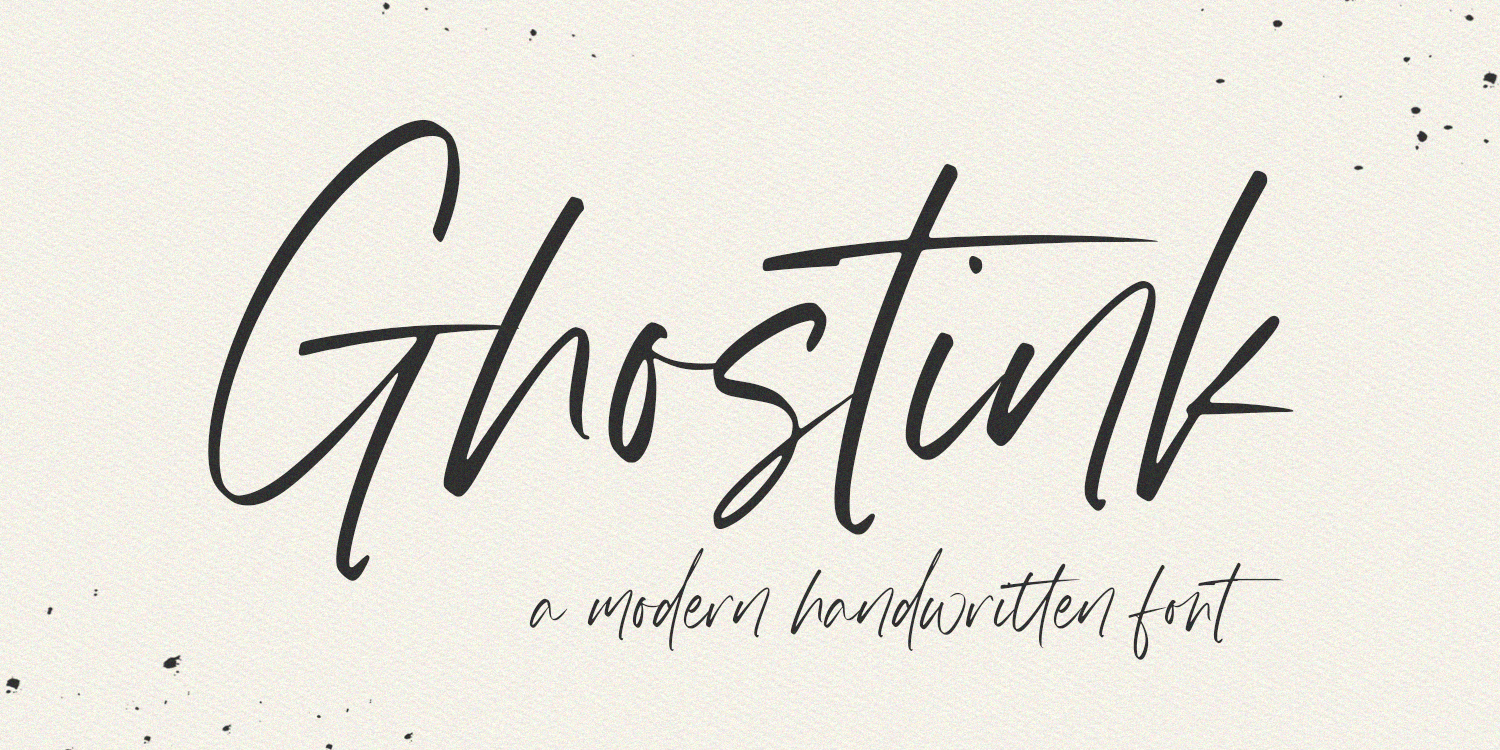
Ghostink Font is ideal for horror movie titles, haunted attraction branding, Halloween event posters, gothic literature covers, supernatural gaming graphics, paranormal investigation logos, spooky themed restaurants, mystery novel designs, and eerie atmospheric campaigns.
What makes Ghostink Font so exciting is its haunting mystique that perfectly captures the ethereal darkness and supernatural atmosphere of ghostly encounters and otherworldly phenomena. This spine-tingling typeface features spectral letterforms with mysterious character details and phantom-like proportions that create an immediate sense of supernatural presence and eerie fascination. The font's distinctive character incorporates the essence of ghostly apparitions while maintaining exceptional readability, making it ideal for horror brands seeking to communicate mysterious allure and spine-chilling authenticity.
Ghostink Font offers a supernatural family collection including Regular, Bold, Light, and Shadow variations, each maintaining the signature ghostly aesthetic while providing different levels of spectral impact for various horror and mystery applications. Additional supernatural ornaments and paranormal decorative elements enhance the font's authentic haunting appeal for spooky themed projects.
Whether you're developing horror entertainment brands, creating supernatural marketing materials, or designing mysterious celebration campaigns, Ghostink Font Free Download delivers the eerie atmosphere and ghostly authenticity that paranormal projects require. Its versatile nature makes it suitable for both large haunting displays and detailed mysterious text while maintaining consistent supernatural appeal across all spooky platforms. This exceptional typeface brings genuine supernatural mystery to your designs, ensuring your message communicates otherworldly intrigue and haunting beauty that resonates with audiences who appreciate gothic atmosphere and value design that captures the thrilling essence of supernatural encounters and ghostly mysteries.